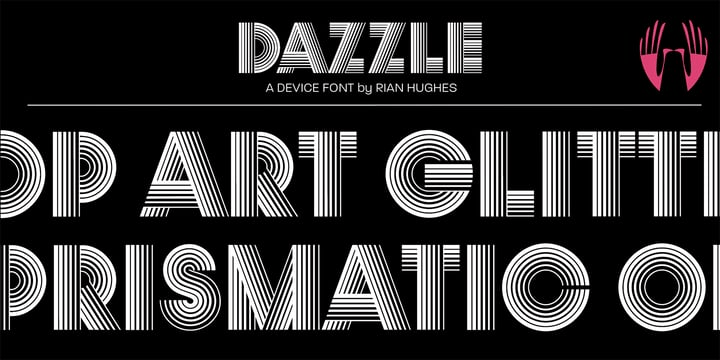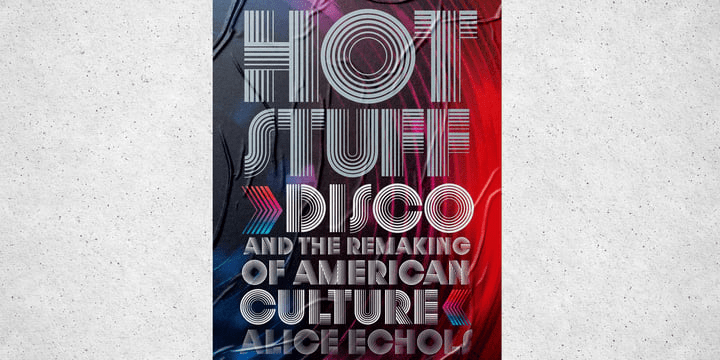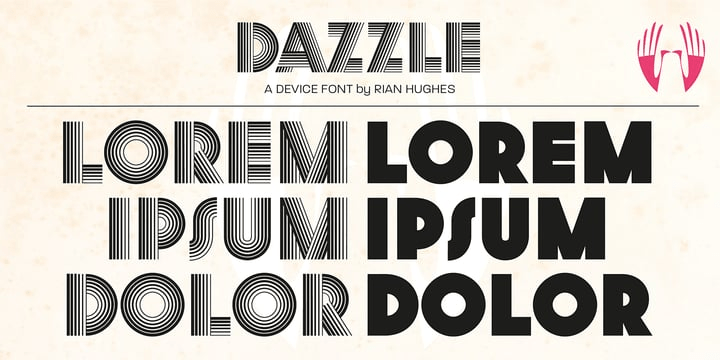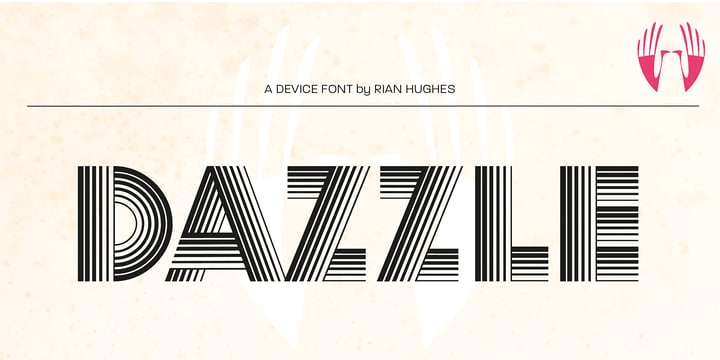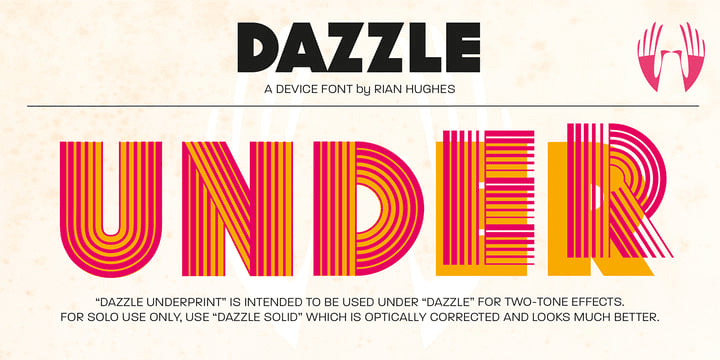
Dazzle
Font Family by Device
Buy NowOp-art never looked so good! Taking a cue from the popularity in the 70s of deco Prismas and their related contemporary interpretations, this geometric font updates the trend. Overlap in different colors or black and white for eye-teasing moir